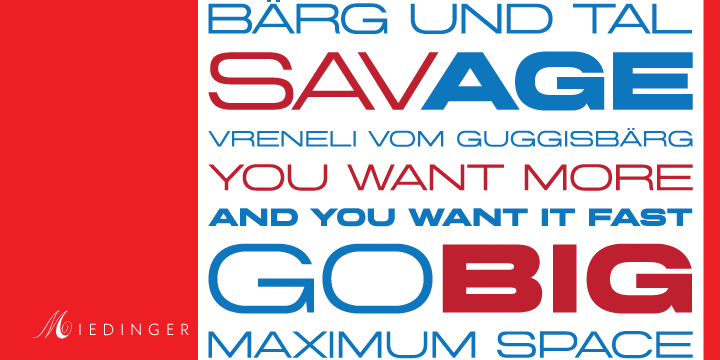
Miedinger is a display sans font family. This typeface has five styles and was published by Canada Type.
Helvetica’s 50-year anniversary celebrations in 2007 were overwhelming and contagious. We saw the movie. Twice. We bought the shirts and the buttons. We dug out the homage books and re-read the hate articles. We mourned the fading non-color of an old black shirt proudly exclaiming that “HELVETICA IS NOT AN ADOBE FONT”. We took part in long conversations discussing the merits of the Swiss classic, that most sacred of typographic dreamboats, outlasting its builder and tenants to go on alone and saturate the world with the fundamental truth of its perfect logarithm. We swooned again over its subtleties (“Ah, that mermaid of an R!”). We rehashed decades-old debates about “Hakzidenz,” “improvement in mind” and “less is more.” We dutifully cursed every single one of Helvetica’s knockoffs. We breathed deeply and closed our eyes on perfect Shakti Gawain-style visualizations of David Carson hack’n'slashing Arial — using a Swiss Army knife, no less — with all the infernal post-brutality of his creative disturbance and disturbed creativity. We then sailed without hesitation into the absurdities of analyzing Helvetica’s role in globalization and upcoming world blandness (China beware! Helvetica will invade you as silently and transparently as a sheet of rice paper!). And at the end of a perfect celebratory day, we positively affirmed √ la Shakti, and solemnly whispered the energy of our affirmation unto the universal mind: “We appreciate Helvetica for getting us this far. We are now ready for release and await the arrival of the next head snatcher.”
The great hype of Swisspalooza ‘07 prompted a look at Max Miedinger, the designer of Neue Haas Grotesk (later renamed to Helvetica). Surprisingly, what little biographical information available about Miedinger indicates that he was a typography consultant and type sales rep for the Haas foundry until 1956, after which time he was a freelance graphic designer — rather than the full-time type designer most Helvetica enthusiasts presume him to have been. It was under that freelance capacity that he was commissioned to design the regular and bold weights of Neue Haas Grotesk typeface. His role in designing Helvetica was never really trumpeted until long after the typeface attained global popularity. And, again surprisingly, Miedinger designed two more typefaces that seem to have been lost to the dust of film type history. One is called Pro Arte (1954), a very condensed Playbill-like slab serif that is similar to many of its genre. The other, made in 1964, is much more interesting. Its original name was Horizontal. Here it is, lest it becomes a Haas-been, presented to you in digital form by Canada Type under the name of its original designer, Miedinger, the Helvetica King.
The original film face was a simple set of bold, panoramically wide caps and figures that give off a first impression of being an ultra wide Gothic incarnation of Microgramma. Upon a second look, they are clearly more than that. This face is a quirky, very non-Akzidental take on the vernacular, mostly an exercise in geometric modularity, but also includes some unconventional solutions to typical problems (like thinning the midline strokes across the board to minimize clogging in three-storey forms).
This digital version introduces four new weights, ranging from Thin to Medium, alongside the bold original. The Miedinger package comes in all popular font formats, and supports Western, Central and Eastern European languages, as well as Esperanto, Maltese, Turkish and Celtic/Welsh. A few counter-less alternates are included in the fonts.